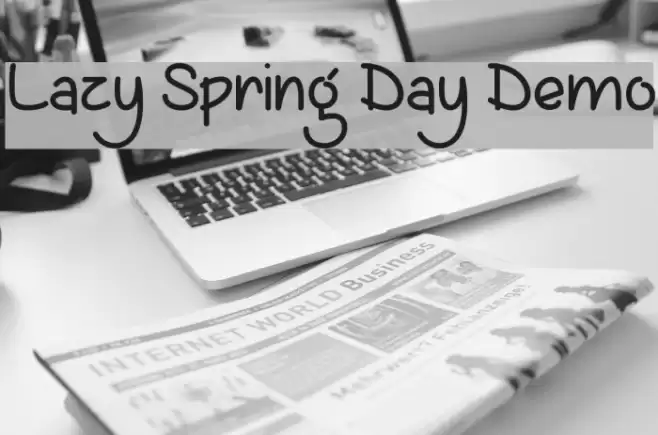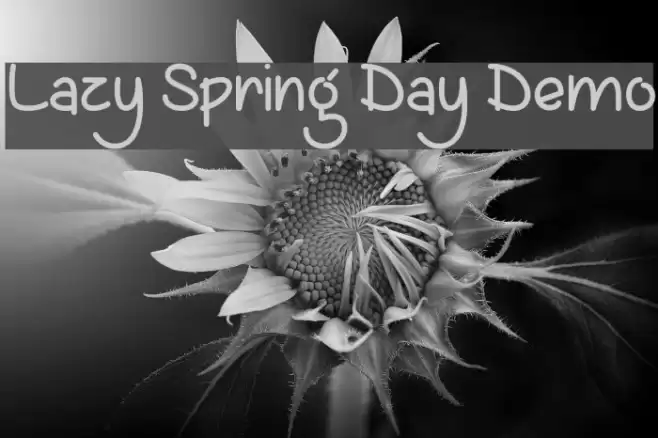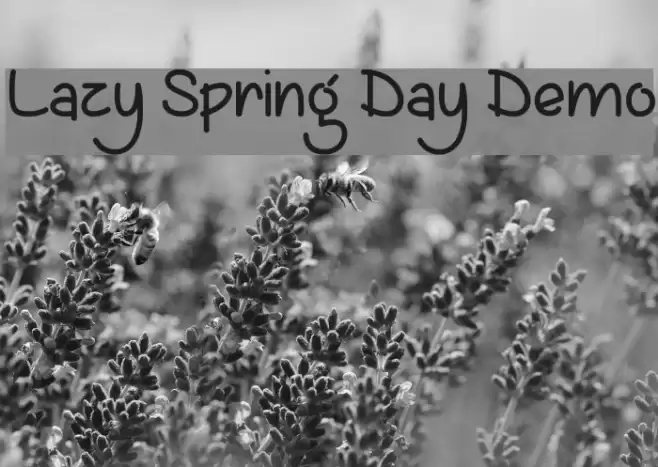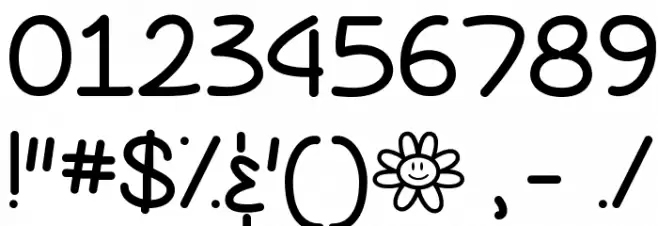
Lazy Spring Day Demo Font
Lazy Spring Day Demo Description
This playful and whimsical font features rounded, smooth edges and a casual, handwritten style. The characters are slightly irregular, giving it a friendly and approachable appearance. The uppercase letters are bold and prominent, while the lowercase letters maintain a consistent flow with a slight slant, adding to the informal vibe. Numbers and special characters are designed to match the overall aesthetic, ensuring a cohesive look. The font's charm is enhanced by its unique character shapes, making it ideal for projects that require a touch of personality and warmth.
A playful, handwritten font with rounded edges and a casual style from Uncategorized fonts.
- Proposed Projects: Ideal for children's books, greeting cards, playful branding, and casual invitations.
- Overall Style: Casual, Playful
- Use Case: Headlines, Logos, Informal Text